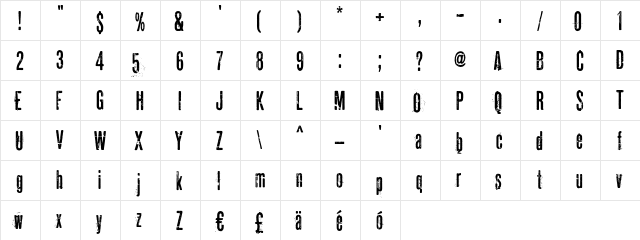
9 Regular
Design Context for 9 Typeface
9 is a composed and adaptable typeface that performs quietly and consistently across a wide range of design contexts.